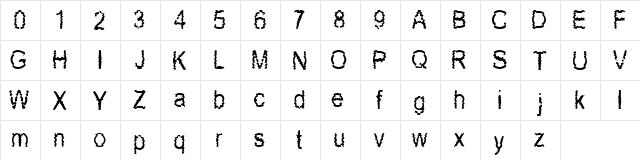
New Mozak Regular
Design Context for New Mozak Typeface
New Mozak is a composed and adaptable typeface that performs quietly and consistently across a wide range of design contexts.